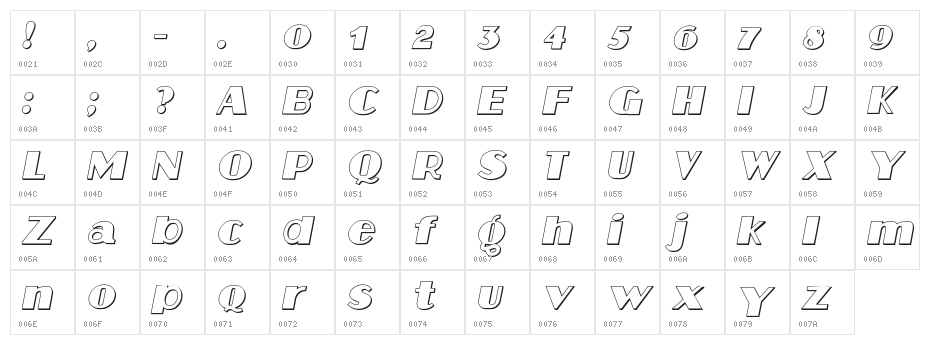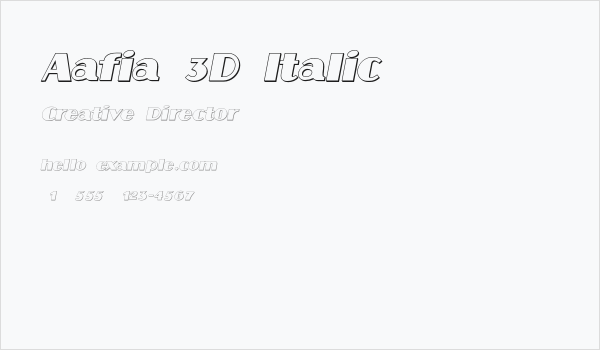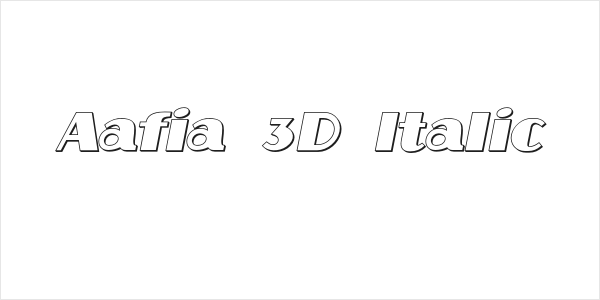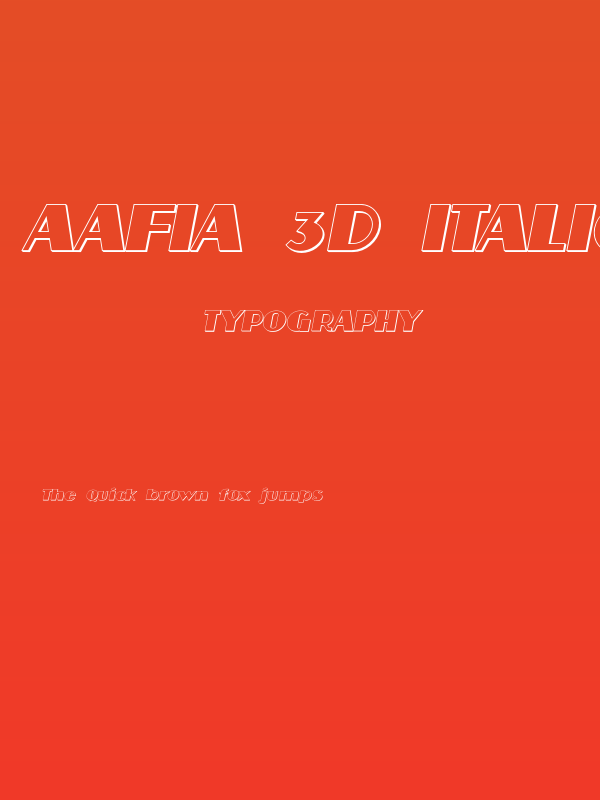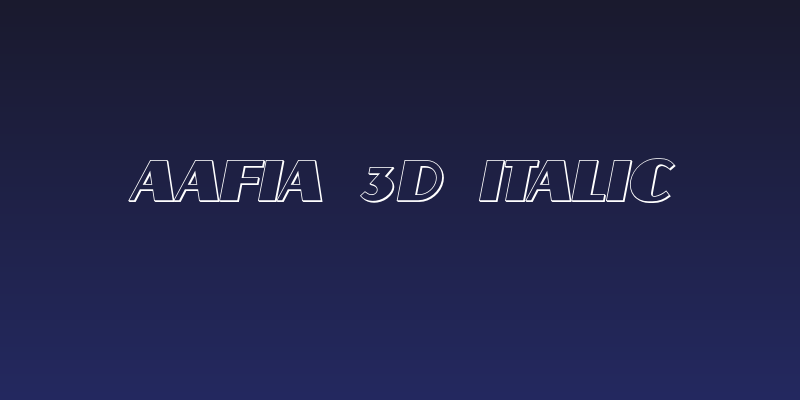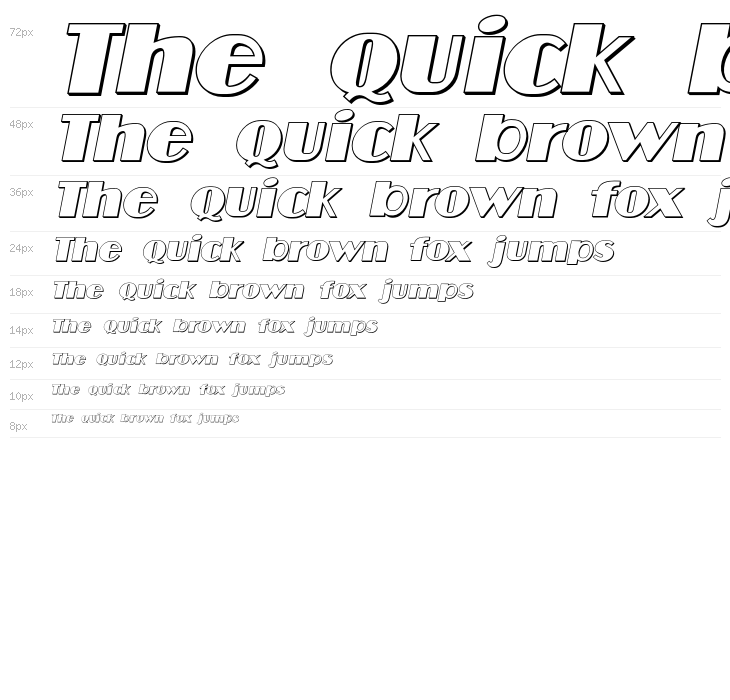
Aafia 3D Italic Font
Aafia 3D Italic Description
This font features a bold, three-dimensional appearance with an italic slant, giving it a dynamic and modern look. The characters are outlined, creating a sense of depth and shadow, which enhances its visual impact. The uppercase and lowercase letters maintain a consistent style, with smooth curves and clean lines. The numerals and special characters follow the same design principles, ensuring uniformity across all glyphs. This font is particularly striking due to its 3D effect, making it suitable for eye-catching designs.
| Proposed Projects | Ideal for posters, headlines, logos, and any design requiring a bold statement. |